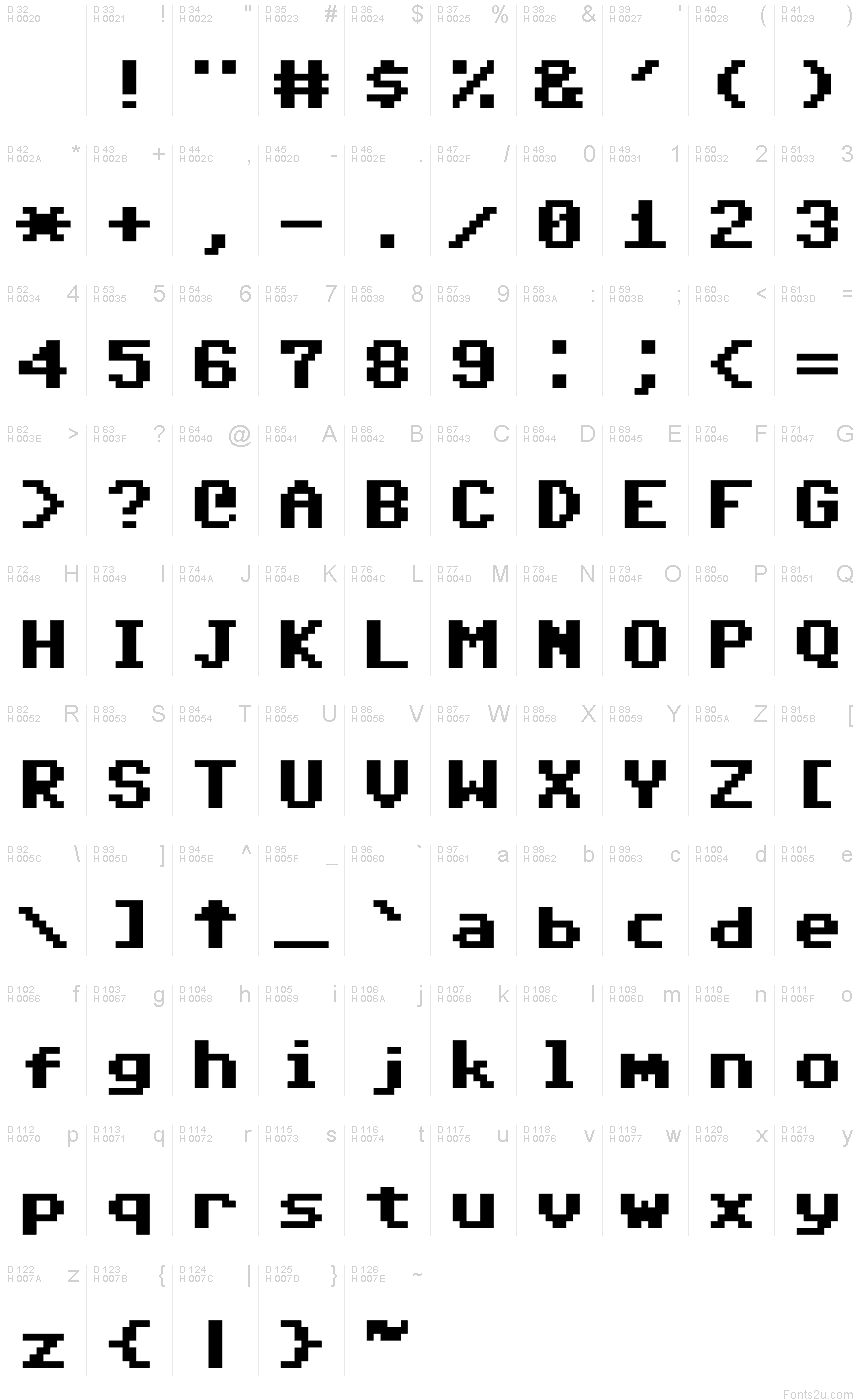
Commodore 64 Pixelized by Devin Cook is a free pixel font built from square modules and hard right angles. Its broad strokes and stepped edges recreate the blunt grid construction of early home computer lettering.
Game graphics are its most natural setting, especially for arcade menus and title screens. The blocky forms also suit technology posters and gaming merchandise with an unmistakable 8-bit reference. Beside pixel art, its letters can function like interface tiles or pixel-art signage.
This is an update to the Commodore 64 font submitted a long time ago. The new version can be embedded in documents such as PDFs.
The font was renamed from “Commodore Pixeled” to “Commodore Pixelized” after a small business complained.